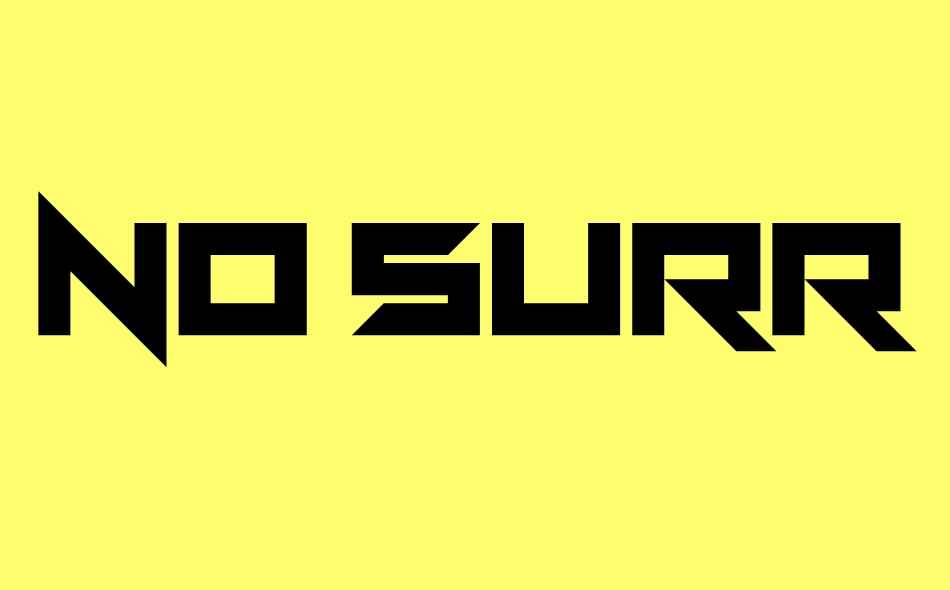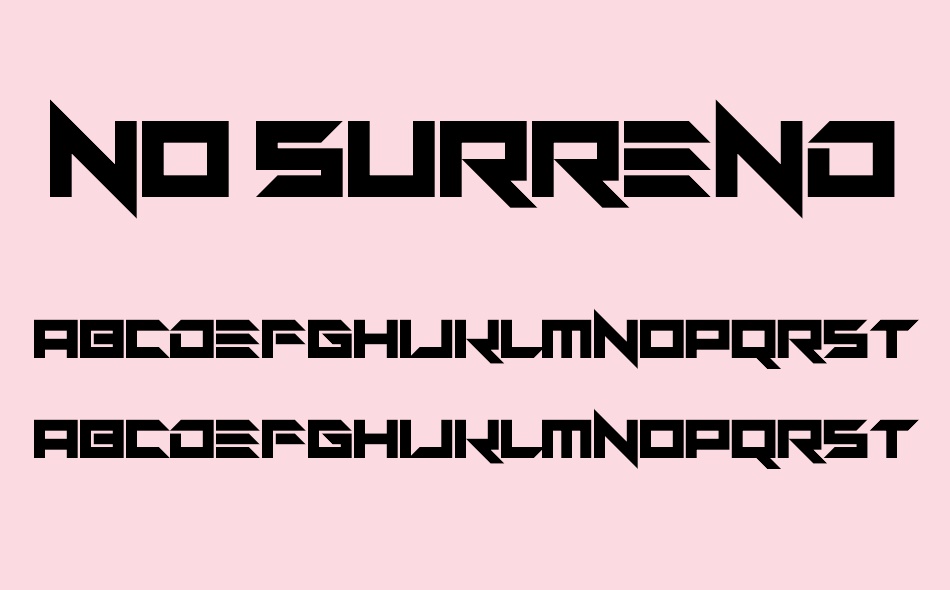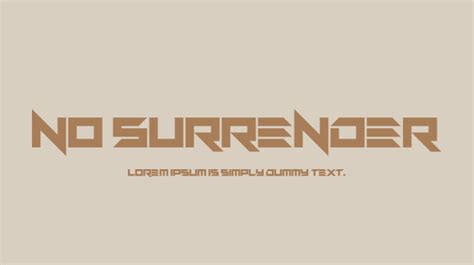
No Surrender Font
No Surrender Font - Web no surrender font is a futuristic typeface designed by darrell flood. This font, created by darrell flood, is free to use for personal. Web free download of no surrender font family with 2 styles. No surrender font download is available free from fontget. No surrender is a free font for personal use.
No surrender font download is available free from fontget. Web free download of no surrender font family with 2 styles. No surrender is a free font for personal use. This font, created by darrell flood, is free to use for personal. Web no surrender font is a futuristic typeface designed by darrell flood.
Web free download of no surrender font family with 2 styles. Web no surrender font is a futuristic typeface designed by darrell flood. No surrender font download is available free from fontget. No surrender is a free font for personal use. This font, created by darrell flood, is free to use for personal.
Web free download of no surrender font family with 2 styles. This font, created by darrell flood, is free to use for personal. No surrender is a free font for personal use. Web no surrender font is a futuristic typeface designed by darrell flood. No surrender font download is available free from fontget.
No surrender is a free font for personal use. Web free download of no surrender font family with 2 styles. This font, created by darrell flood, is free to use for personal. No surrender font download is available free from fontget. Web no surrender font is a futuristic typeface designed by darrell flood.
No Surrender font by Darrell Flood FontRiver
Web no surrender font is a futuristic typeface designed by darrell flood. Web free download of no surrender font family with 2 styles. No surrender font download is available free from fontget. This font, created by darrell flood, is free to use for personal. No surrender is a free font for personal use.
No surrender font download is available free from fontget. This font, created by darrell flood, is free to use for personal. No surrender is a free font for personal use. Web no surrender font is a futuristic typeface designed by darrell flood. Web free download of no surrender font family with 2 styles.
Web free download of no surrender font family with 2 styles. This font, created by darrell flood, is free to use for personal. Web no surrender font is a futuristic typeface designed by darrell flood. No surrender font download is available free from fontget. No surrender is a free font for personal use.
Web no surrender font is a futuristic typeface designed by darrell flood. No surrender is a free font for personal use. No surrender font download is available free from fontget. This font, created by darrell flood, is free to use for personal. Web free download of no surrender font family with 2 styles.
No Surrender Font HAWTPIXEL Darrell Flood FontSpace
This font, created by darrell flood, is free to use for personal. Web no surrender font is a futuristic typeface designed by darrell flood. No surrender is a free font for personal use. No surrender font download is available free from fontget. Web free download of no surrender font family with 2 styles.
Web free download of no surrender font family with 2 styles. No surrender font download is available free from fontget. No surrender is a free font for personal use. This font, created by darrell flood, is free to use for personal. Web no surrender font is a futuristic typeface designed by darrell flood.
No Surrender Font
Web free download of no surrender font family with 2 styles. No surrender is a free font for personal use. Web no surrender font is a futuristic typeface designed by darrell flood. No surrender font download is available free from fontget. This font, created by darrell flood, is free to use for personal.
No Surrender free font
Web free download of no surrender font family with 2 styles. Web no surrender font is a futuristic typeface designed by darrell flood. No surrender is a free font for personal use. No surrender font download is available free from fontget. This font, created by darrell flood, is free to use for personal.
No surrender font download is available free from fontget. Web no surrender font is a futuristic typeface designed by darrell flood. This font, created by darrell flood, is free to use for personal. Web free download of no surrender font family with 2 styles.